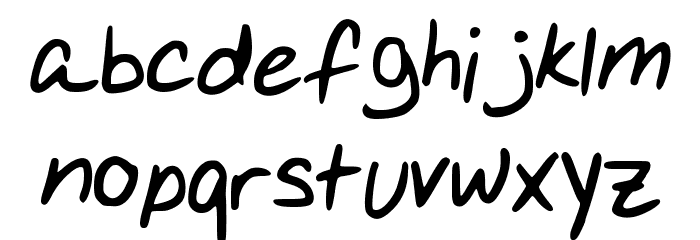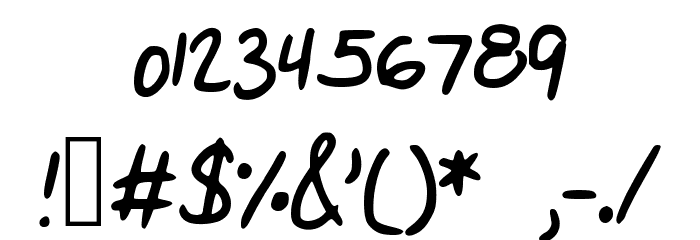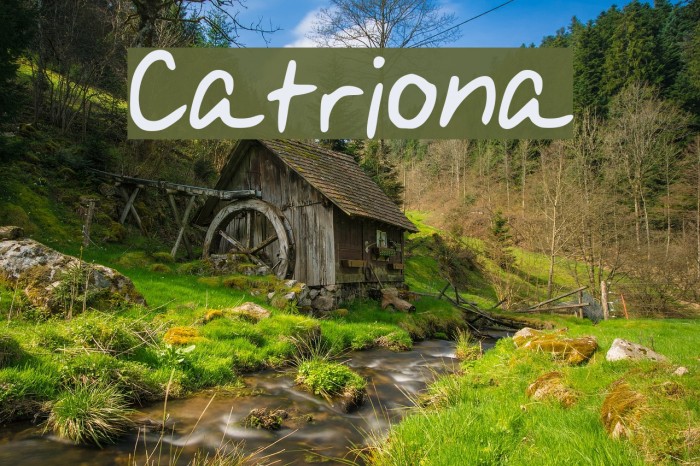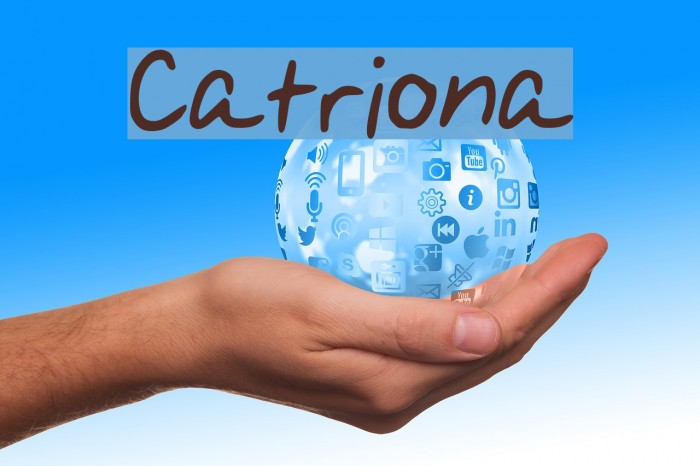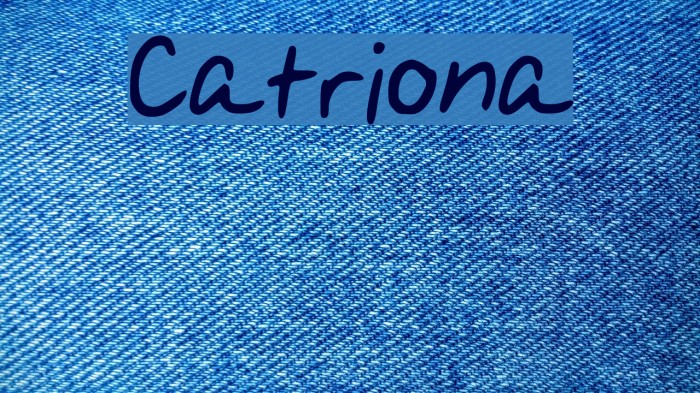
Catriona Font
This font features a playful and casual handwritten style, characterized by its smooth, flowing lines and slightly irregular shapes. The letters have a natural, organic feel, with varying stroke widths that add a sense of movement and dynamism. The uppercase and lowercase letters are well-balanced, maintaining a consistent rhythm throughout the alphabet. Numbers and special characters are designed to match the overall aesthetic, making the font versatile for various applications. Its informal and friendly appearance makes it suitable for projects that require a personal touch.
A playful, casual handwritten font with smooth, flowing lines.
- Proposed Projects: Ideal for greeting cards, invitations, personal branding, and creative projects that require a friendly, informal touch.
- Category: Handwritten
- Overall Style: Casual
- Use Case: Logos, Invitations, Greeting Cards